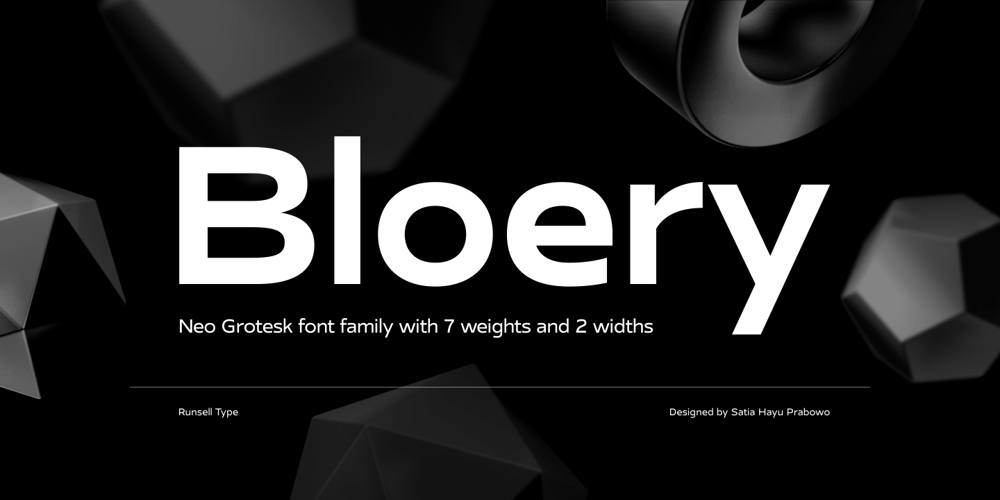
Bloery Font Family was designed by Satia Hayu Prabowo and published by Runsell Type. Bloery contains 16 styles and family package options. Bloery is a neo grotesque font modified with extended proportion. Comes with a modern look, this font suitable for display and body text. Bloery is a good choice for editorial design, branding, app design and web design. Comes with 7 weights from Thin to Bold with each matching Italic. Contain several OpenType features: Stylistic Alternates and Figures Variation (fraction, tabular lining, numerator, denominator). Each style includes 540+ glyphs supporting all western, eastern and central european languages (over 200 languages supported).